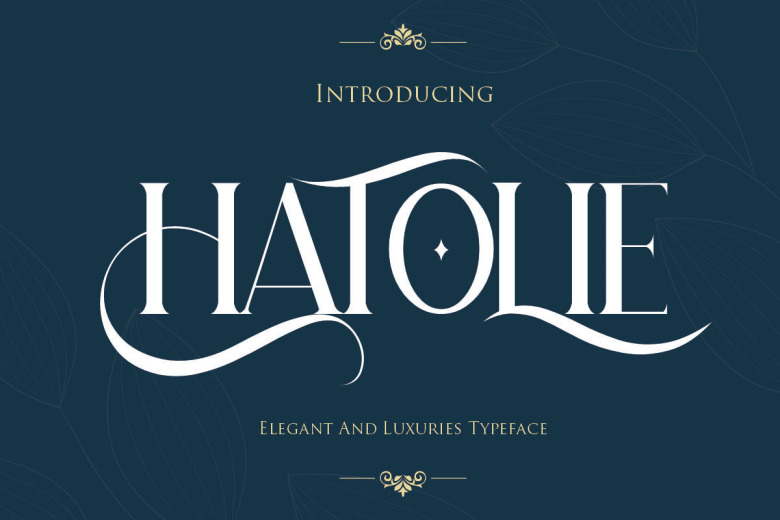
Hatolie Display Serif Typeface
Hatolie Font
Hatolie Font is a display serif typeface. It includes multi-lingual and currency support, numerals, and punctuation. This typeface is a joy to play with, offering all the benefits of custom typography without the price tag or difficult designer!
It’s an all caps typeface, with strong and sleek letters, which create a brilliant foundation for the flourished alternatives to rest. The result is beautiful interlocking and totally unique designs. This font is free for PERSONAL USE. Link to purchase full version and commercial license: HERE